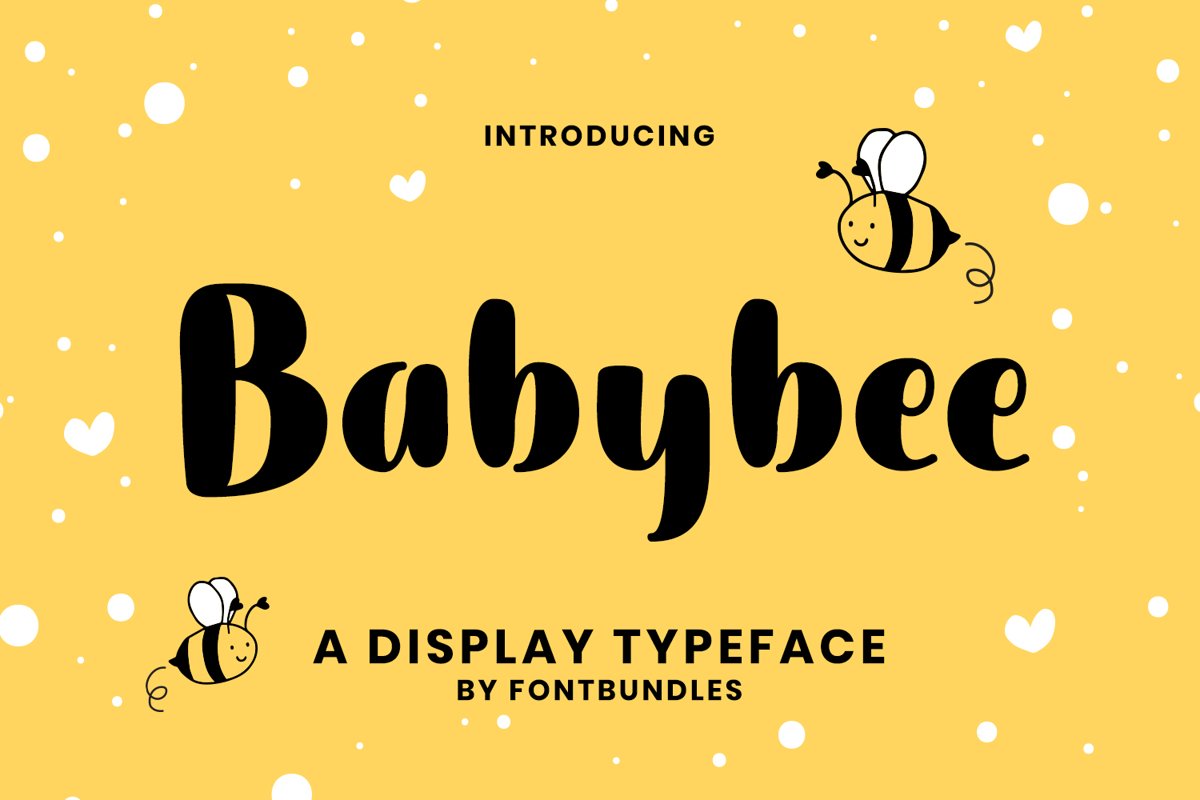
Babybee
Babybee is a display typeface. Perfect for display, quotes, craft needs, business card, name card, florist needs, frame, t-shirt, print, merchandise, packaging, branding, and many more.